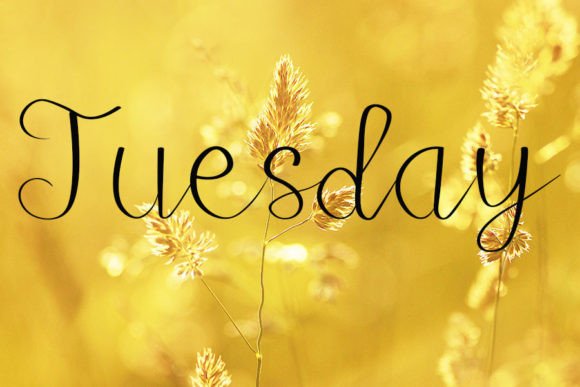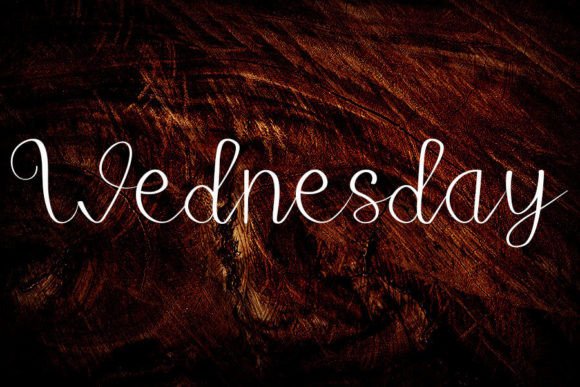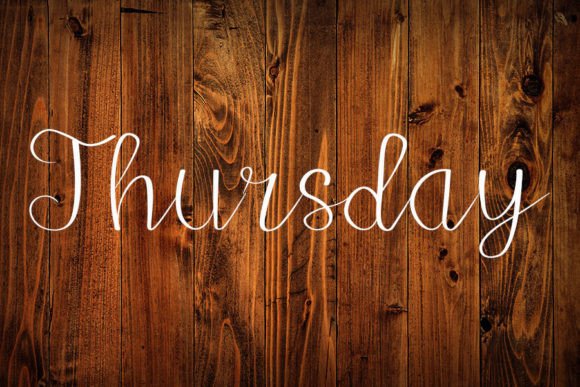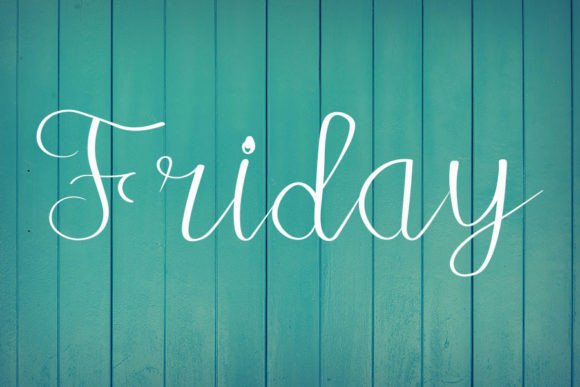
About Monday Font
“Monday” is a neat and beautiful handwritten font distinguished by an elegant touch, making it a perfect choice for your favorite projects. Its distinct and timeless style invites you to fall in love with its charm and provides the perfect canvas to create spectacular designs with a touch of sophistication.
The neat and beautiful quality of “Monday” is evident in its meticulously crafted characters. The font’s elegant touch adds a sense of refinement, making it suitable for a variety of design projects where a polished and stylish look is desired.
Its distinct and timeless style contributes to the font’s versatility, allowing it to adapt seamlessly to various creative applications. Whether applied to branding materials, invitations, posters, or any design project, “Monday” brings a touch of sophistication that enhances the overall aesthetic.
The font invites you to infuse your projects with a sense of elegance and charm. Its handwritten quality adds a personal and authentic touch, making it particularly well-suited for designs that require a combination of neatness and beauty.
In summary, “Monday” is more than just a font; it’s a design tool that offers a neat and beautiful handwritten style with an elegant touch. Fall in love with its distinct and timeless appeal, and use it to create spectacular designs that resonate with sophistication and charm across a range of creative endeavors.